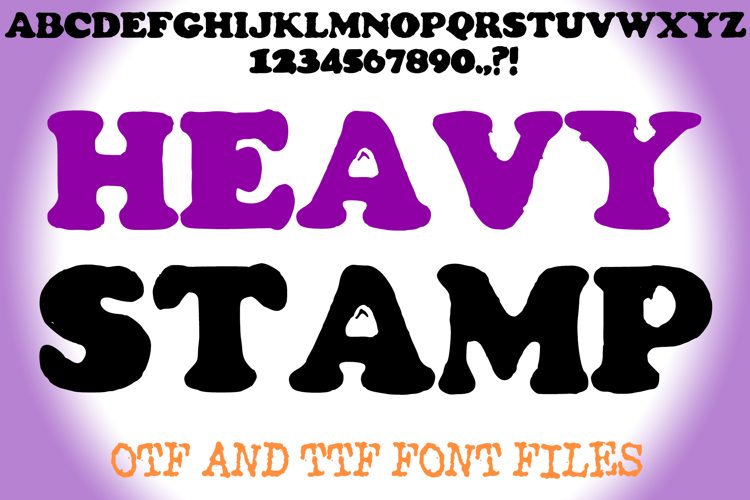
Heavy Stamp Font Vintage Ink Typeface Bold Handmade Display
Make a massive impression with Heavy Stamp Font, a powerhouse display typeface designed for maximum impact! This font was hand-crafted using genuine vintage stamps and real ink, capturing the raw, unrefined beauty of analog printing.
This design focuses on the heavy saturation and rich textures found in manual ink transfers. Every character carries the weight of a physical stamp, featuring deep ink density and the beautiful, unpredictable splatters that occur when metal meets paper. From the solid, blocky presence of the letters to the organic, bleeding edges, this font is as authentic as it gets.